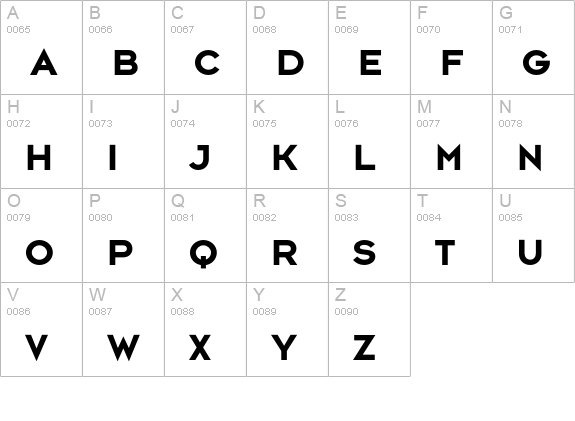
BonnMediumCaps font is a sophisticated yet versatile typeface that exudes elegance and modernity. With its medium weight and stylish medium capital letters, this font is perfect for creating eye-catching headlines, titles, and logos. The sleek and polished design of BonnMediumCaps font makes it suitable for a wide range of design projects, from branding to editorial design. What makes BonnMediumCaps font even more appealing is that it is available for free download at FontsMarket.com. This means that you can easily access this premium font without having to spend a penny. Whether you're a designer looking to add a touch of class to your projects or a business owner in need of a stylish font for your marketing materials, BonnMediumCaps font is the perfect choice. Download it now and elevate your designs with this exquisite typeface.